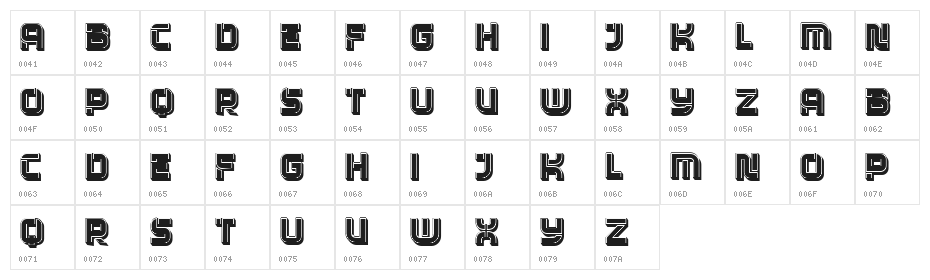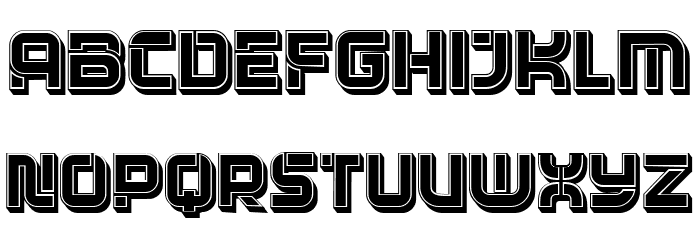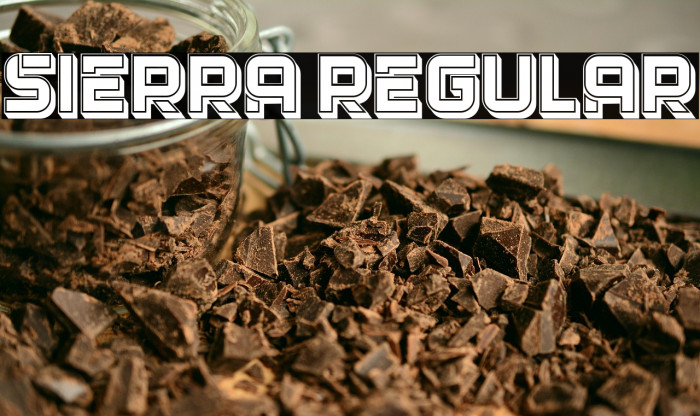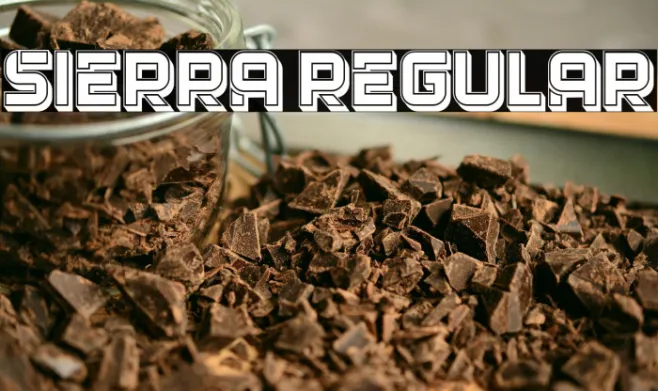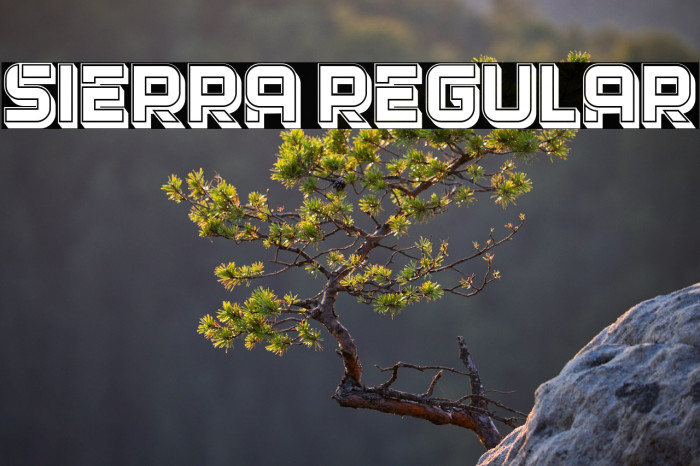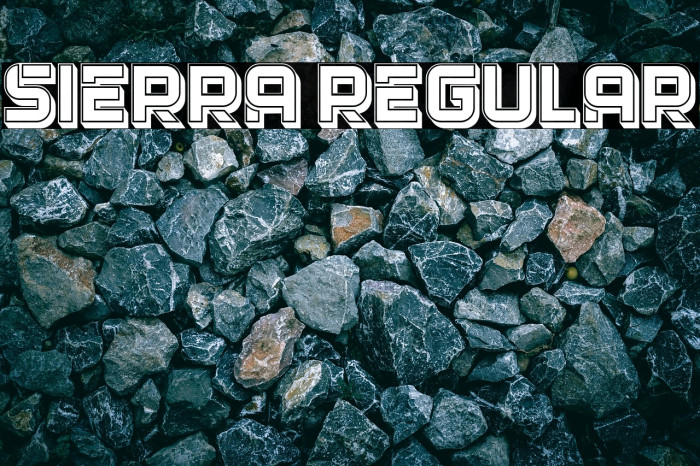
Sierra Regular Font
Sierra Regular Description
This font features a bold, geometric design with a strong, futuristic aesthetic. The characters are outlined with a thick, black border that gives them a three-dimensional appearance. The interior of each letter is filled with a lighter color, creating a striking contrast that enhances readability. The font's structure is angular and precise, with sharp corners and straight lines dominating the design. This style is reminiscent of digital or sci-fi themes, making it ideal for projects that require a modern and edgy look. The uppercase letters are particularly prominent, and the font maintains a consistent height across all characters, ensuring uniformity in text presentation.